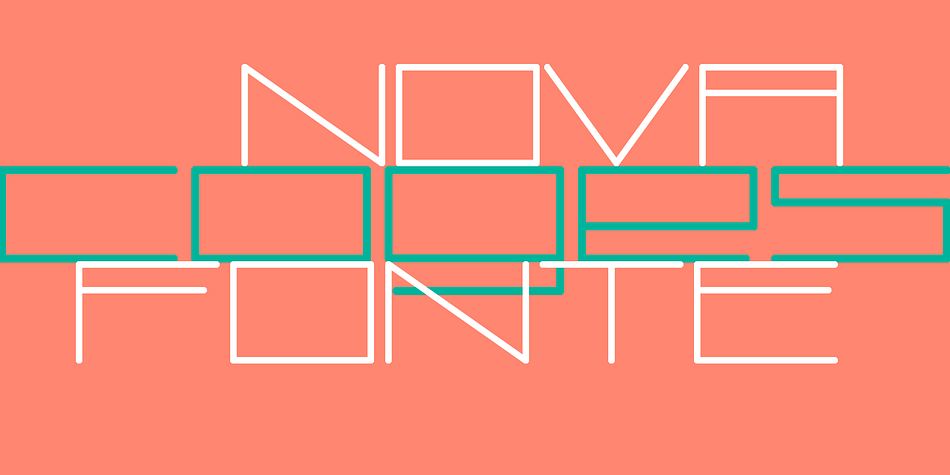
Coges
Designed by Leandro Ribeiro Machado, Coges is a display sans font published by Leandro Ribeiro Machado.
Coges is a geometric shape of origin with relatively simple structure.
The shape of each character is very simple and contemporary.
I recommend using the title or a short phrase posters and especially useful for the design work.
Displaying the beauty and characteristics of the Coges font family.
Highlighting the Coges font family.
Coges is a geometric shape of origin with relatively simple structure. The shape of each character is very simple and contemporary. I recommend using the title or a short phrase posters and especially useful for the design work.